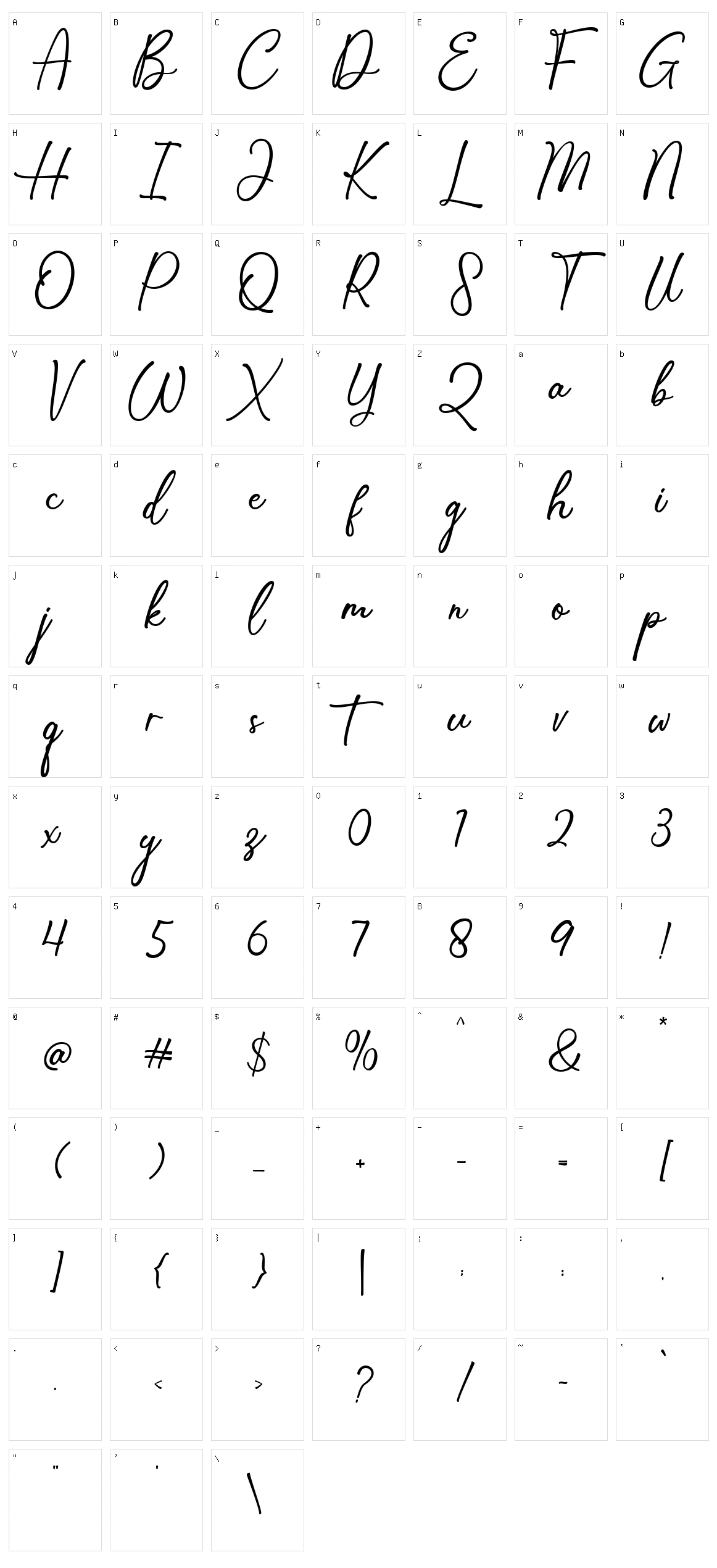
The free font Mellisa Handwritten is carefully designed by Mayofont, showcasing a thoughtful balance of creativity and usability and falls under the Script font style. When you download the ZIP file, it contains only 42.52 KB of font files, making it lightweight and quick to download. Please review the license details below to understand permitted usage and distribution rights. If license information is not available, we recommend using this font for personal projects only or contacting the author directly for commercial usage permissions.